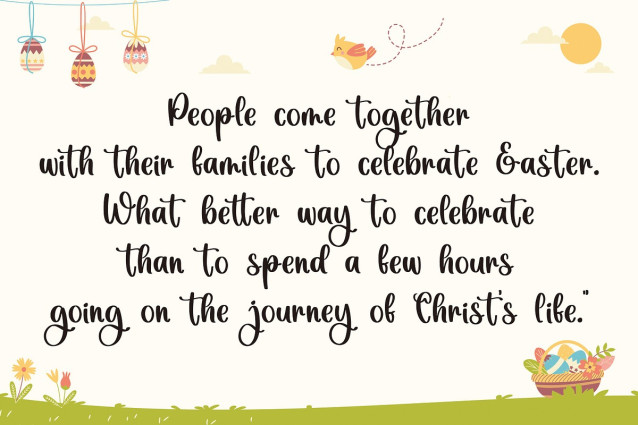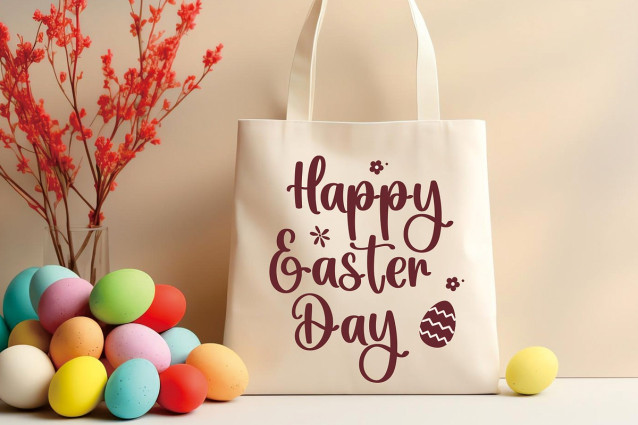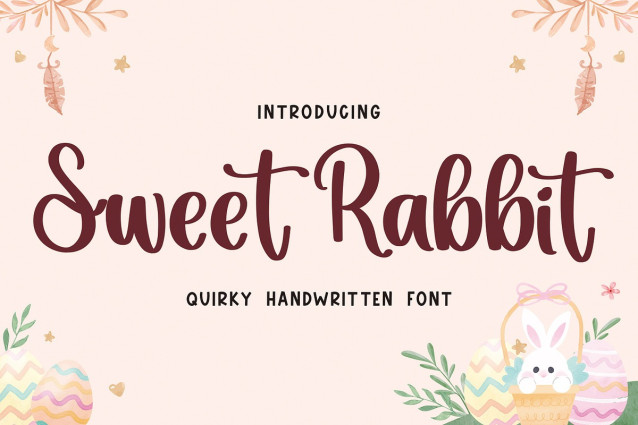
Sweet Rabbit Font, the perfect script handwritten style font to elevate your Easter, Cricut, embroidery, Thanksgiving, Christmas, craft lettering, and seasonal projects! Designed with a charming handcrafted aesthetic, Sweet Rabbit Font adds a delightful touch to your designs, whether you’re creating festive greeting cards, personalized crafts, or decorative accents for your home. With its whimsical strokes and playful curves, this font captures the essence of joy and celebration, making it an ideal choice for all your holiday-themed endeavors.
Crafted with meticulous attention to detail, Sweet Rabbit Font offers versatility and flair for a wide range of creative applications. Whether you’re a seasoned crafter or just beginning your crafting journey, this font brings a touch of magic to your projects, infusing them with warmth and character. Add a dash of personality to your Easter baskets, custom ornaments, or seasonal decorations with Sweet Rabbit Font, and watch as your designs come to life with style and sophistication.